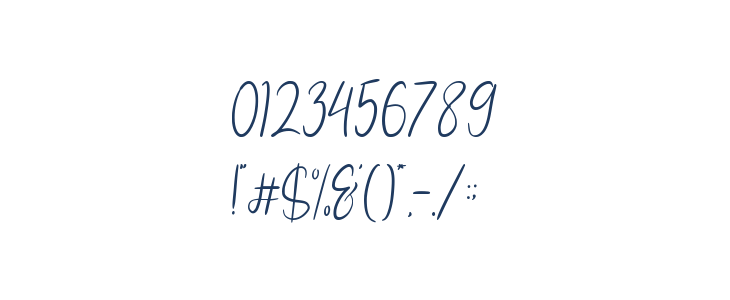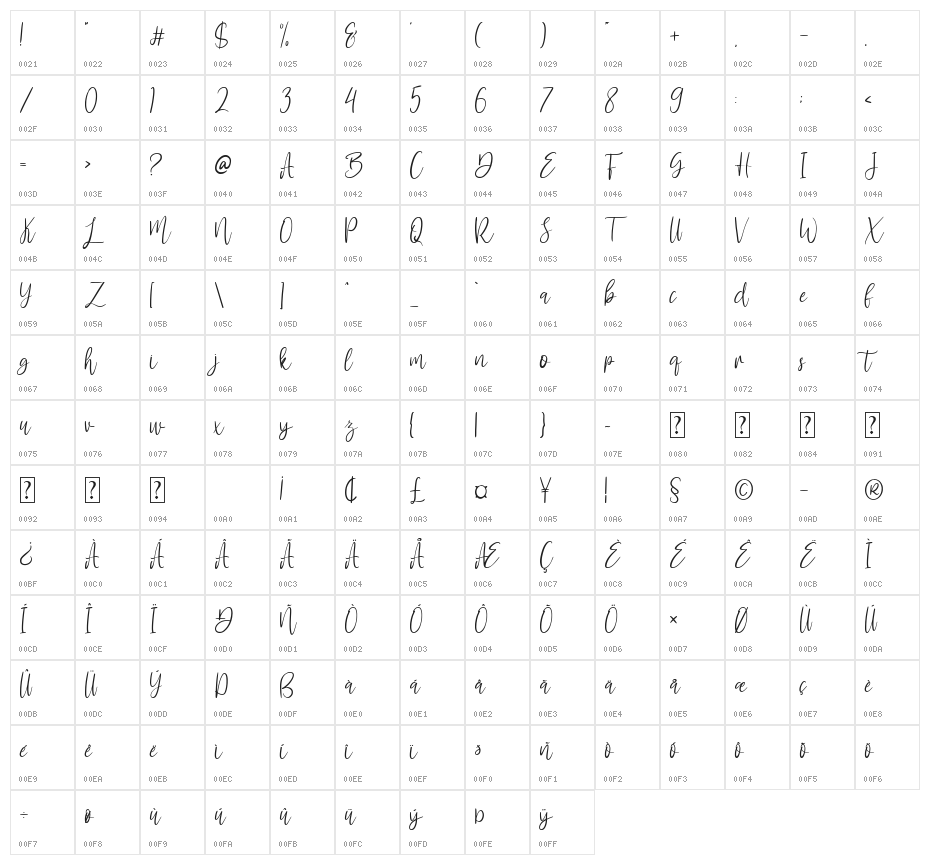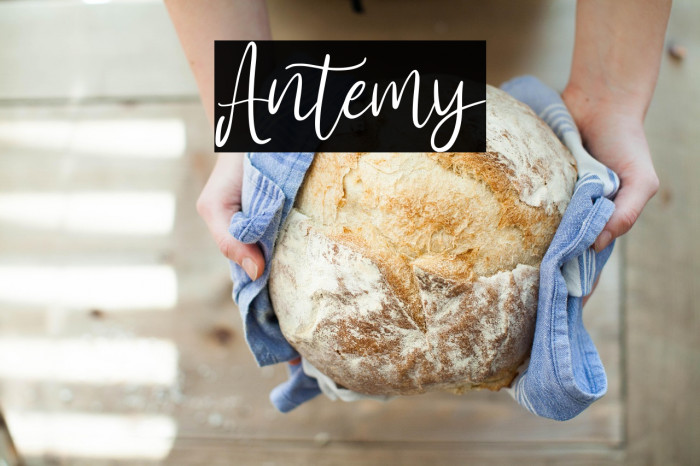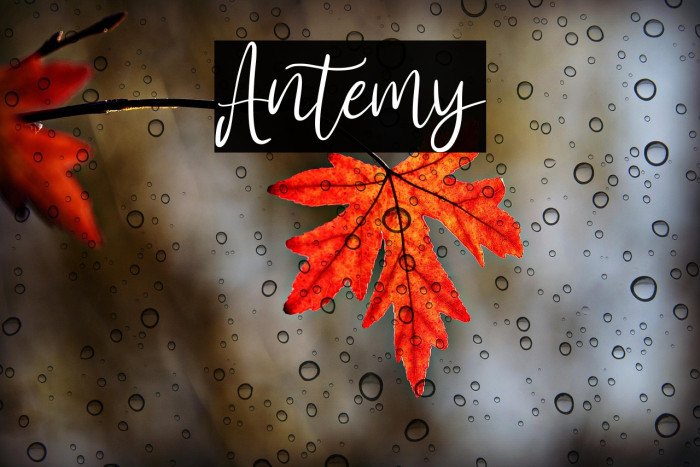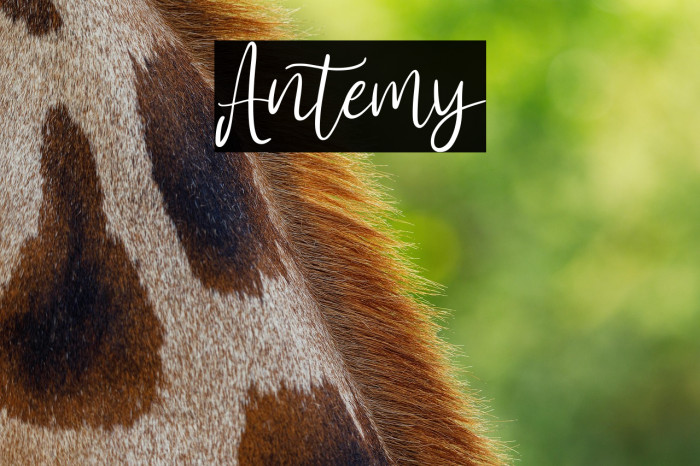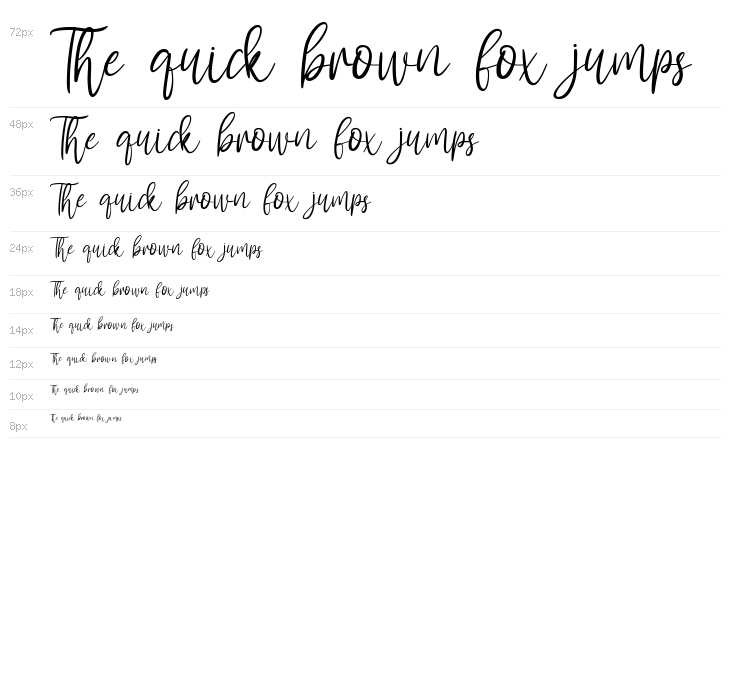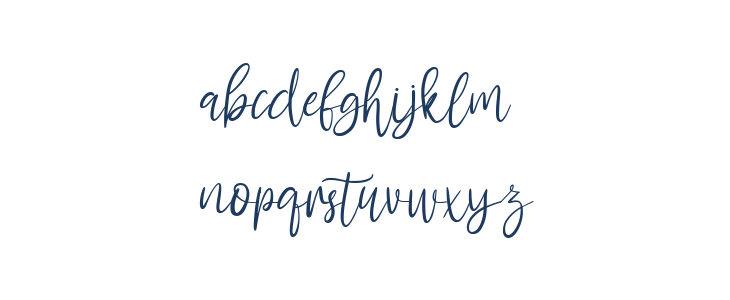
Antemy Font
Antemy Description
This font features a lively and flowing script style, characterized by its elegant and cursive letterforms. The uppercase letters exhibit a graceful and sweeping motion, while the lowercase letters maintain a consistent rhythm with a slightly playful touch. The numerals are designed to complement the overall script aesthetic, maintaining the same fluidity and elegance. Special characters are seamlessly integrated, enhancing the font's versatility. The strokes are moderately thick, providing a balanced contrast that ensures readability while preserving the decorative nature of the script. This font is ideal for projects that require a personal and artistic touch, such as invitations, greeting cards, and branding materials.
| Use Case | Logos, Headlines, Artistic projects |
| Proposed Projects | Ideal for invitations, greeting cards, branding, and artistic projects. |